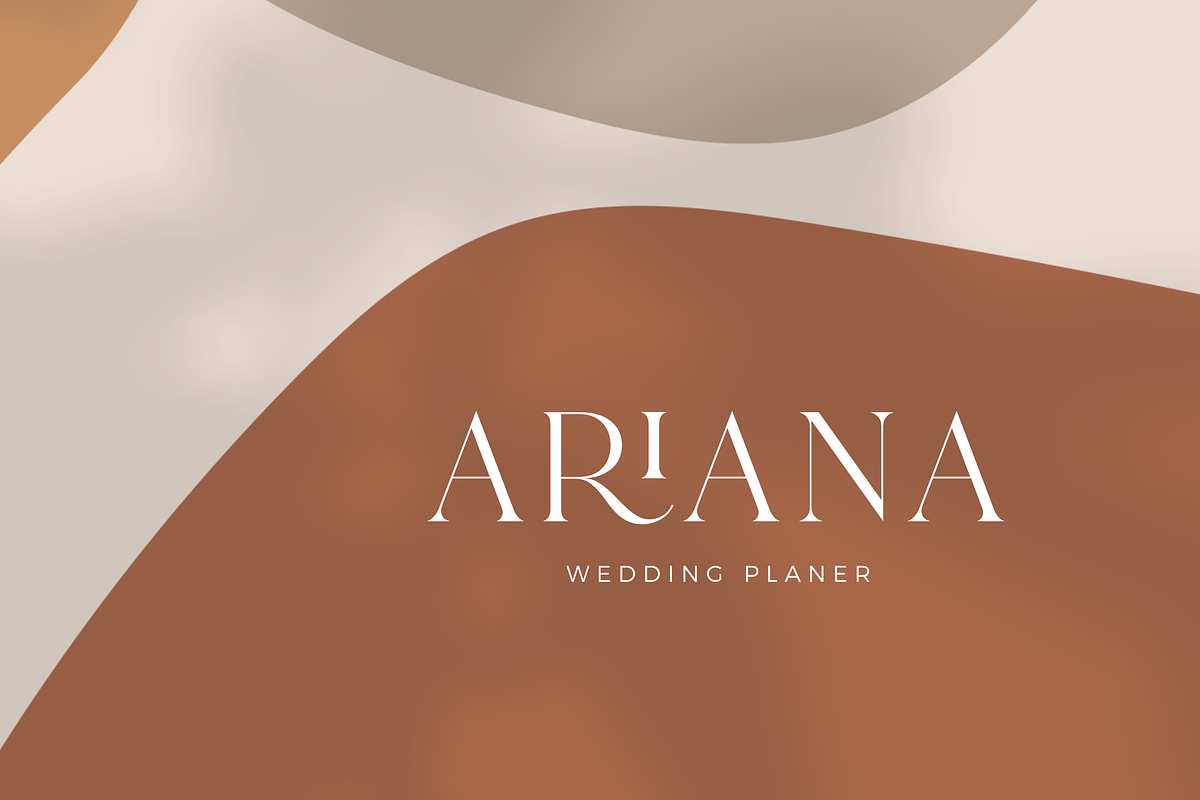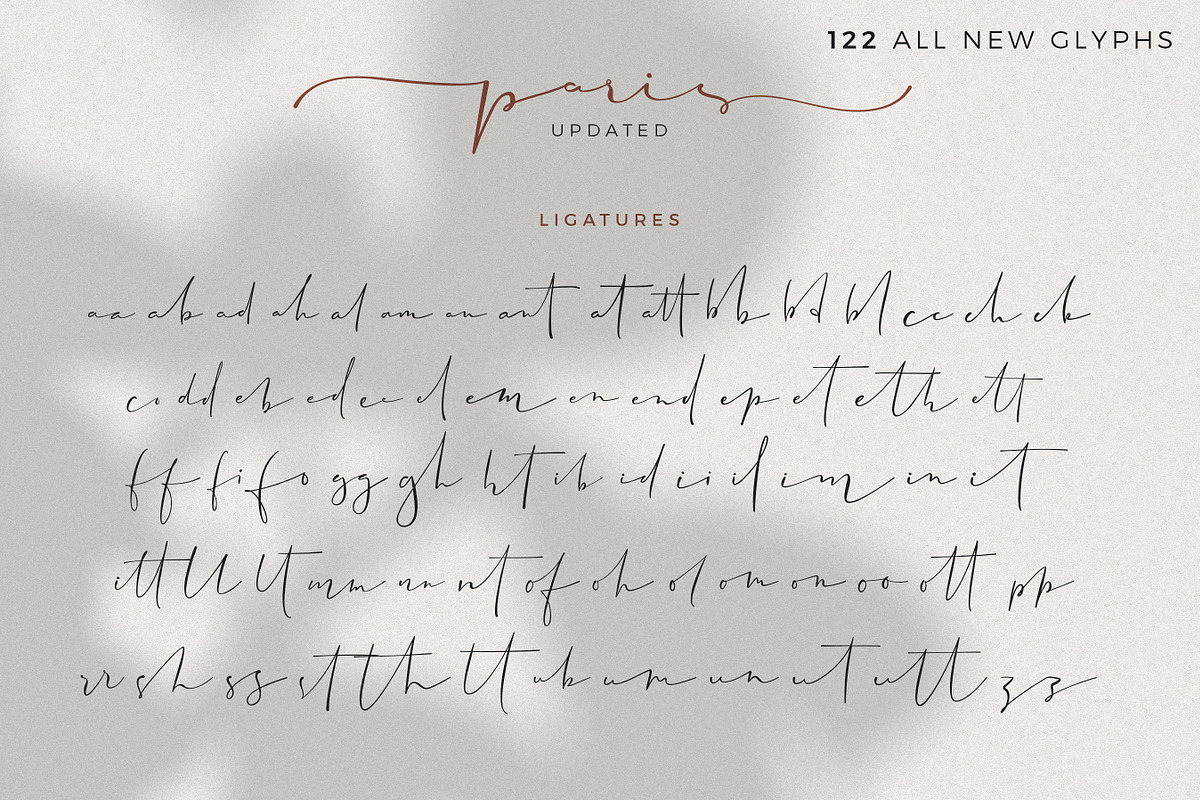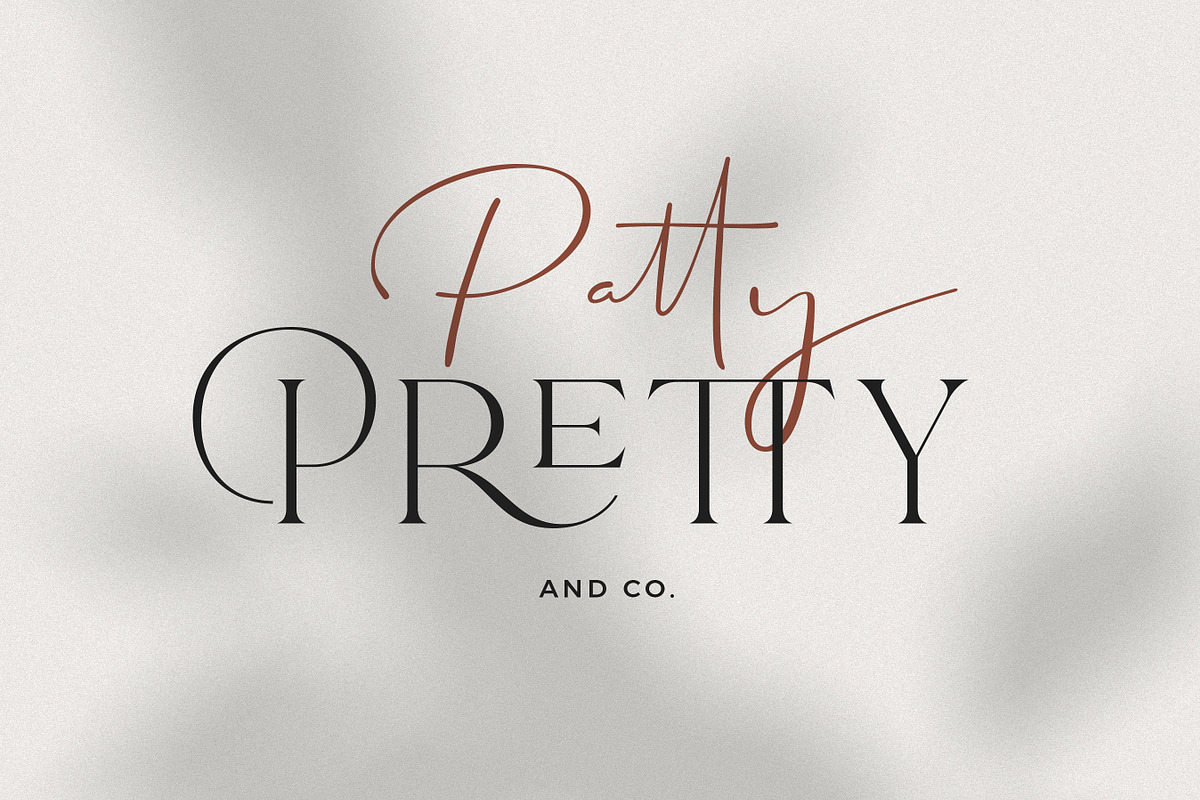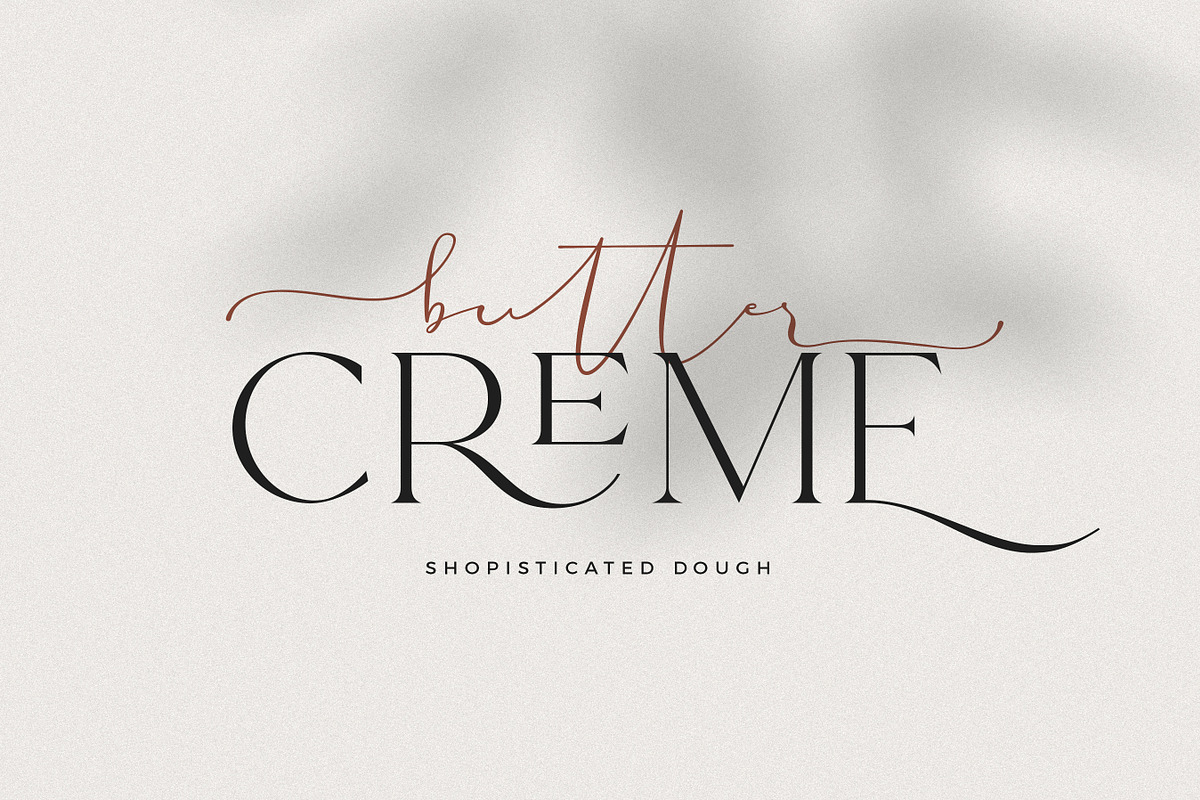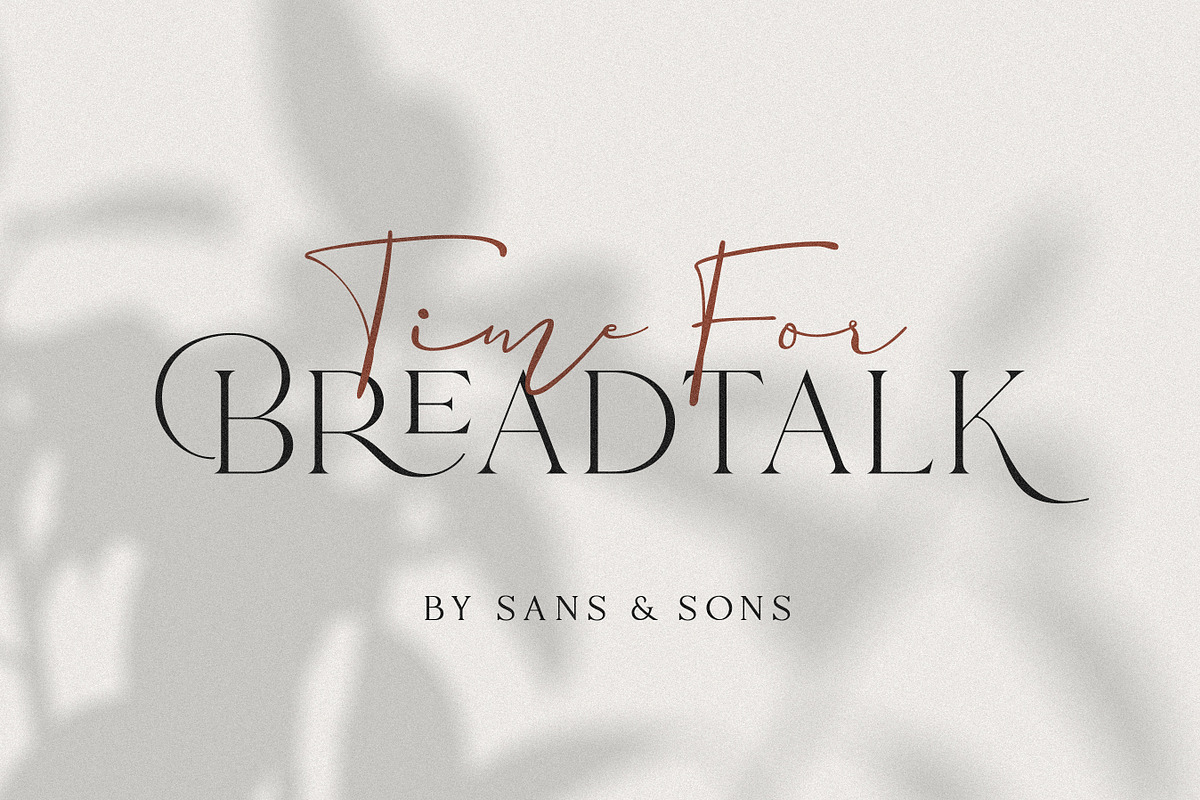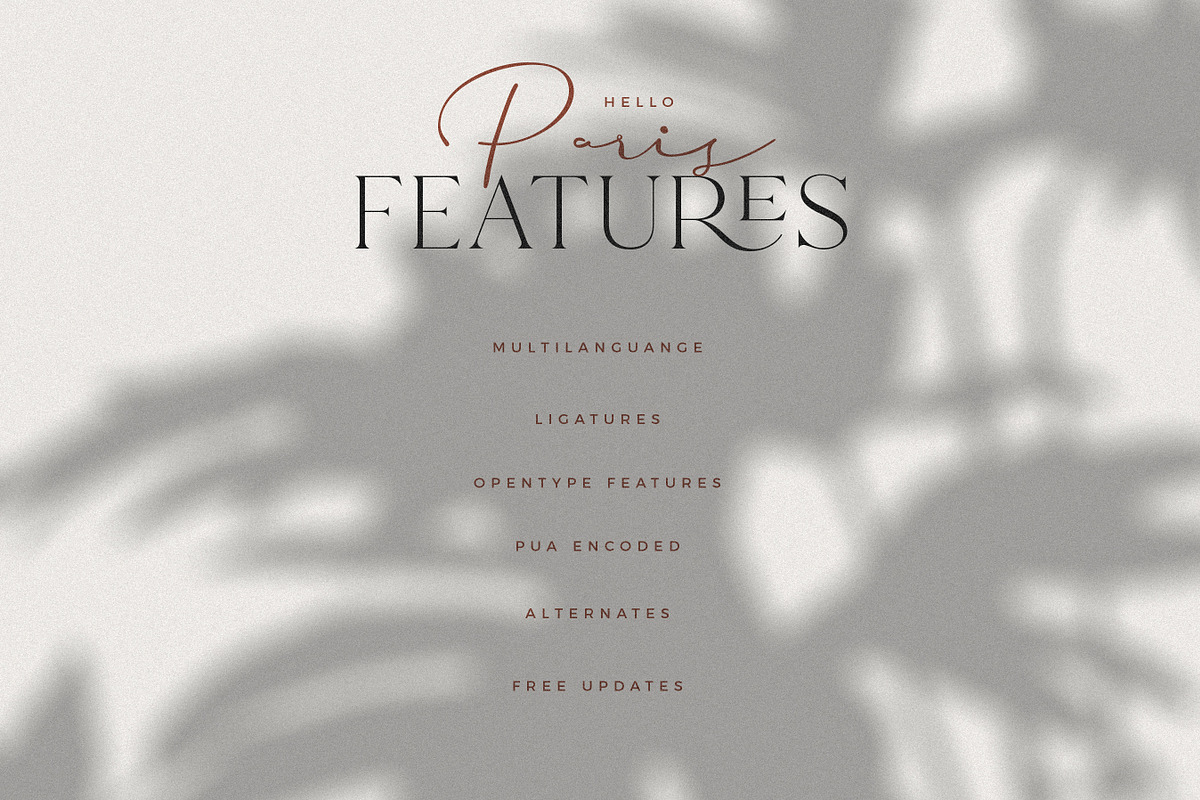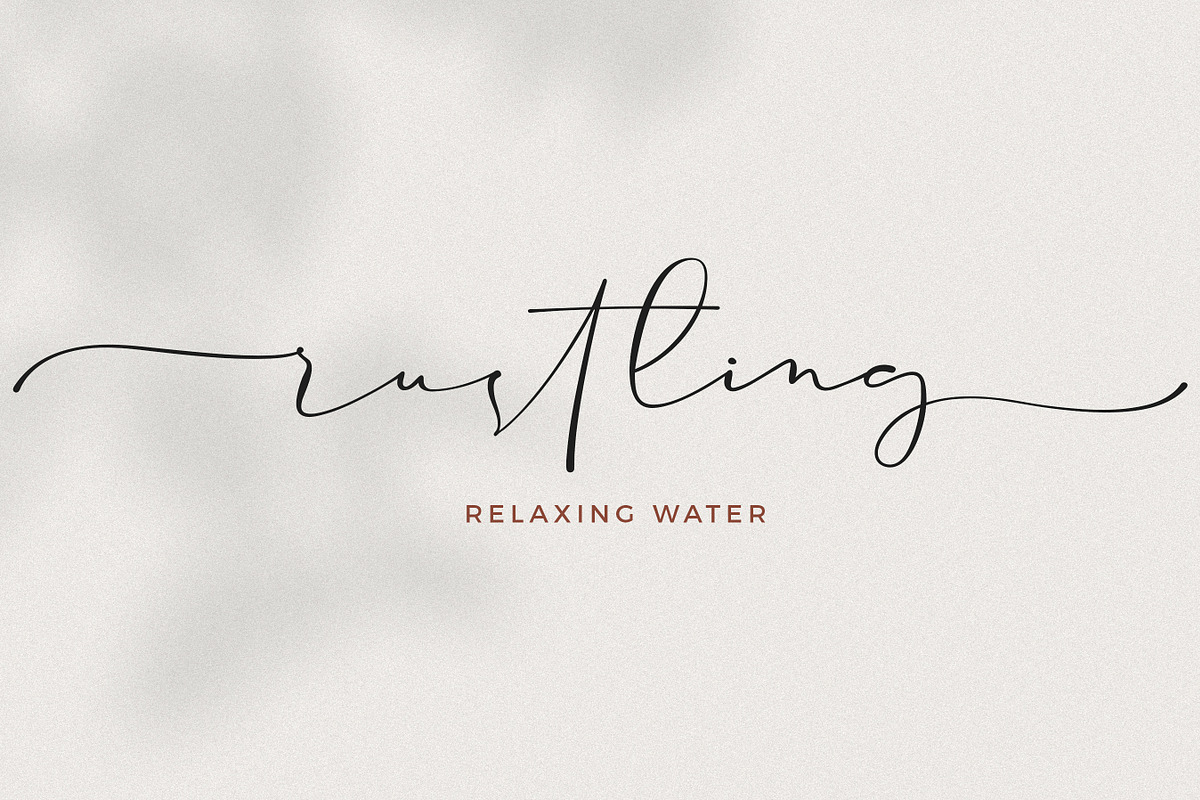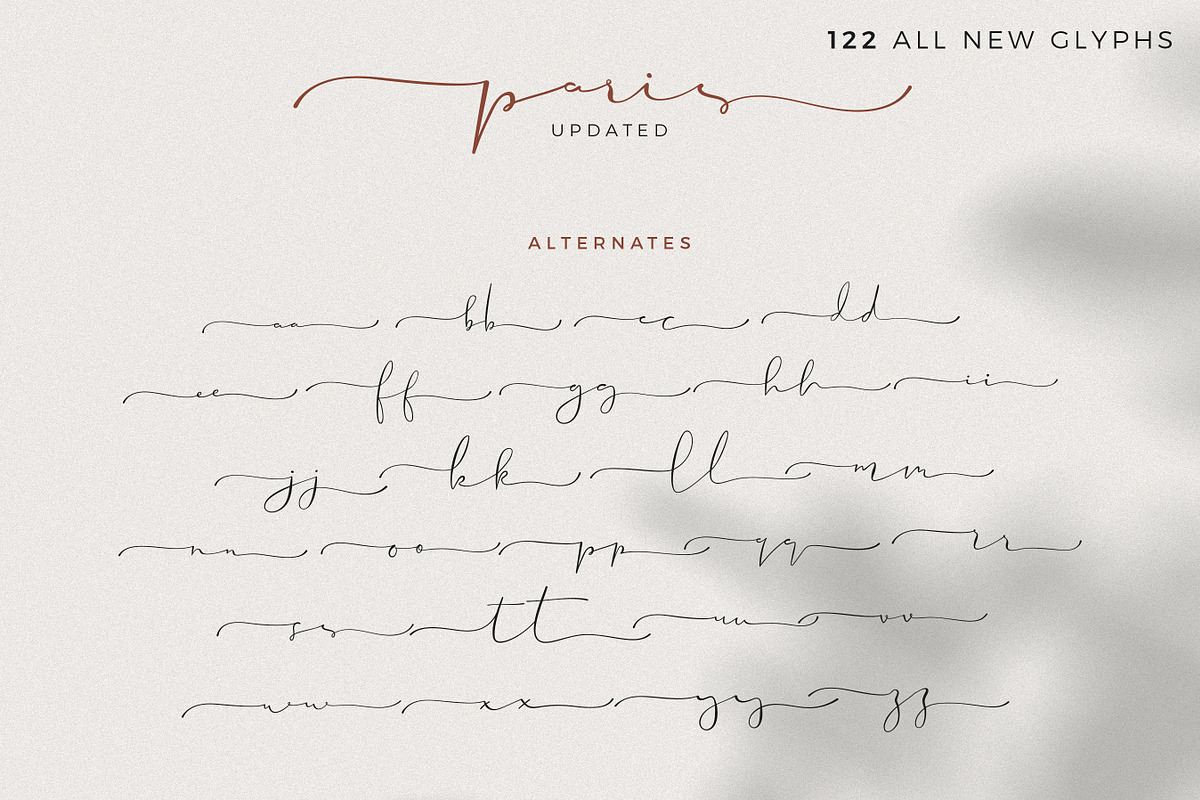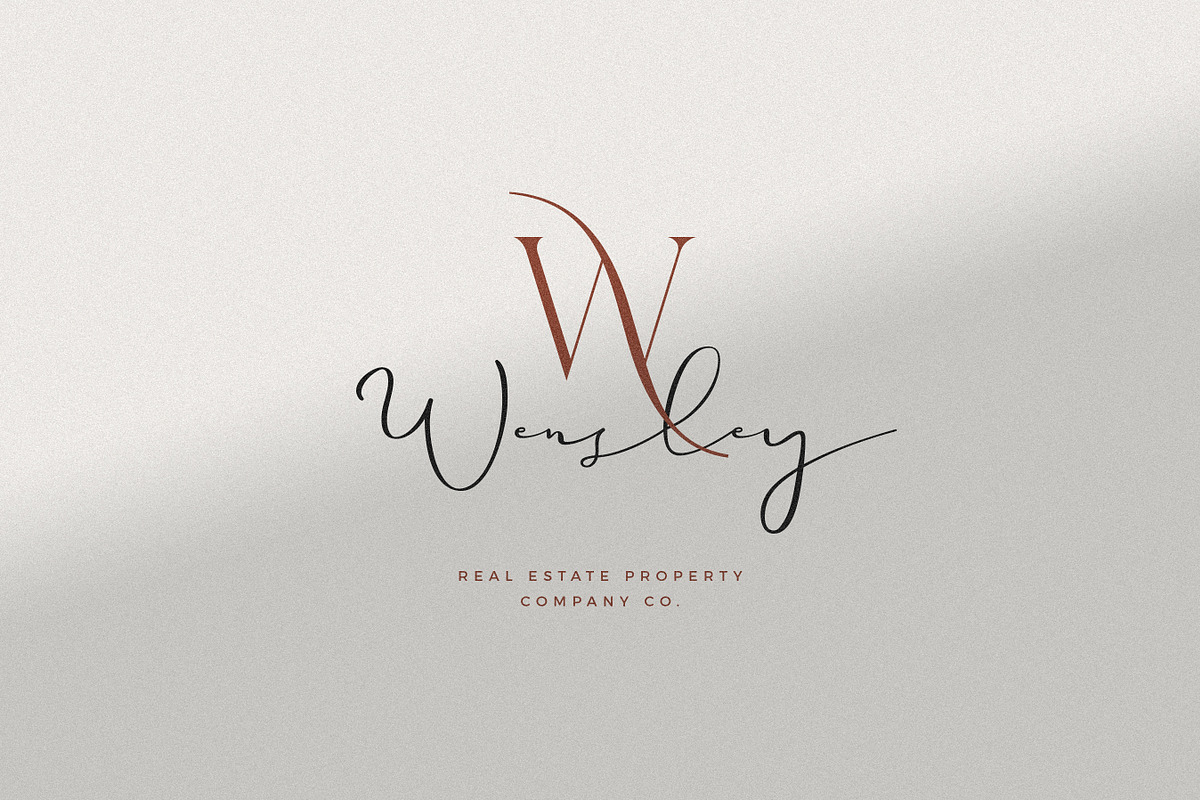
Hello Paris - Variable Duo
Hello Paris - Modern Variable Paired Duo
say hello for our first debut " Hello Paris " with Modern Elegant Style this is perfect for branding, logos, invitation, masterheads and more.
Hello Paris Features :
- NEW Variable Feature ( please see our video tutorial about how to use it )
- Alphabet Cutfile
- Hello Paris Script Numerals and Punctuation
- Hello Paris Script Multilanguange
- a lot of Ligatures for Hello Paris Script
- NEW Alternates for Hello Paris Script
- New 5 weight for Hello Paris Serif
- Extralight
- Light
- Medium
- Bold
- NEW Variable Feature for Hello Paris Serif